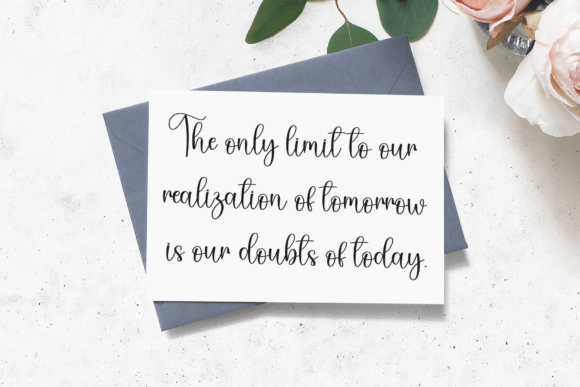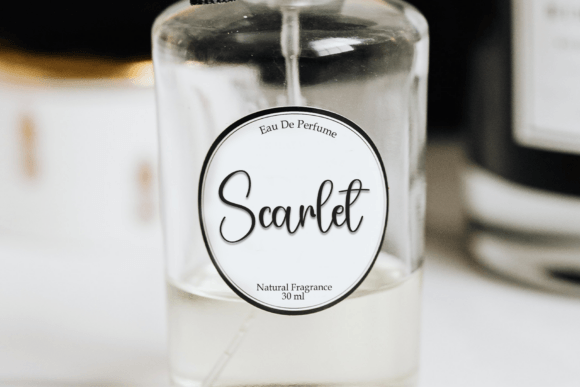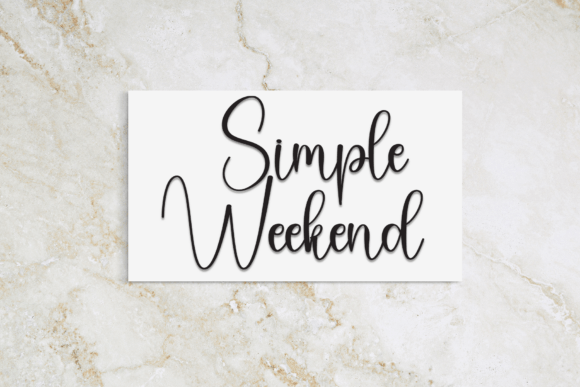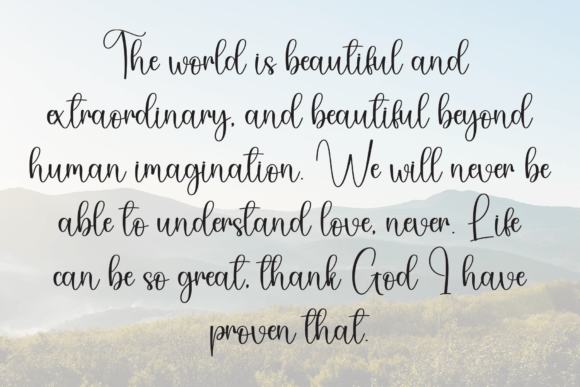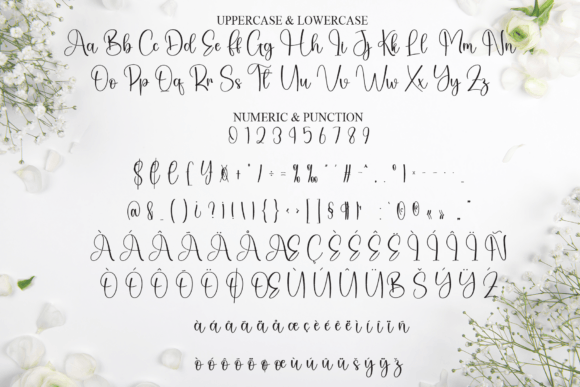
Introducing the Charming Handwritten Font: Elevate Your Designs with a Touch of Joy
Are you tired of using the same old fonts in your designs? Look no further! We’re thrilled to introduce a charming and jovial handwritten display font that’s sure to add a dash of joy and fun to your creations. This splendid blend of sweet simplicity and friendly character is perfect for designers and crafters looking to breathe life into their words.
The Power of Handwritten Fonts
Handwritten fonts have a way of captivating audiences with their unique and personal touch. They evoke feelings of warmth, friendliness, and approachability, making them perfect for a wide range of design projects. Whether you’re creating a wedding invitation, a heartfelt card, or an abstract design, a handwritten font can add a touch of elegance and sophistication.
What Makes This Handwritten Font Special?
Our charming handwritten display font is designed to bring a sense of delight and joy to your designs. With its exquisite finesse, this font adds a lively feel to everything you create. Its sweet simplicity and friendly character make it perfect for a wide range of projects, from formal events to casual designs. Here are just a few reasons why you’ll love this font:
- Unique Character: Each letter is carefully crafted to bring a sense of personality and charm to your designs.
- Versatile: This font is perfect for a wide range of projects, from wedding invitations to social media graphics.
- Easy to Read: The font’s clear and simple design makes it easy to read, even at small sizes.
- Highly Customizable: You can use this font in a variety of contexts, from digital designs to print materials.
Use Cases for the Handwritten Font
So, what can you create with this charming handwritten font? The possibilities are endless! Here are a few ideas to get you started:
- Wedding Invitations: Add a touch of elegance and sophistication to your wedding invitations with this beautiful handwritten font.
- Cards and Stationery: Create heartfelt cards and stationery that will make your loved ones feel special.
- Social Media Graphics: Use this font to create eye-catching social media graphics that will help you stand out from the crowd.
- Abstract Designs: Add a dash of joy and fun to your abstract designs with this lively handwritten font.
Tips for Using the Handwritten Font
Here are a few tips to help you get the most out of this charming handwritten font:
- Keep it Simple: Don’t overcomplicate your design. Let the font speak for itself.
- Experiment with Colors: Try out different colors and combinations to find the perfect look for your design.
- Play with Size: Experiment with different font sizes to add emphasis and create visual interest.
- Mix and Match: Combine this font with other fonts and design elements to create a unique look.
In conclusion, our charming handwritten display font is the perfect addition to any design project. With its unique character, versatility, and ease of use, this font is sure to bring a touch of joy and fun to your creations. Whether you’re a designer, crafter, or simply someone looking to add a personal touch to your designs, this font is sure to delight. So why wait? Download our handwritten font today and let your words dance on the canvas with exquisite finesse!